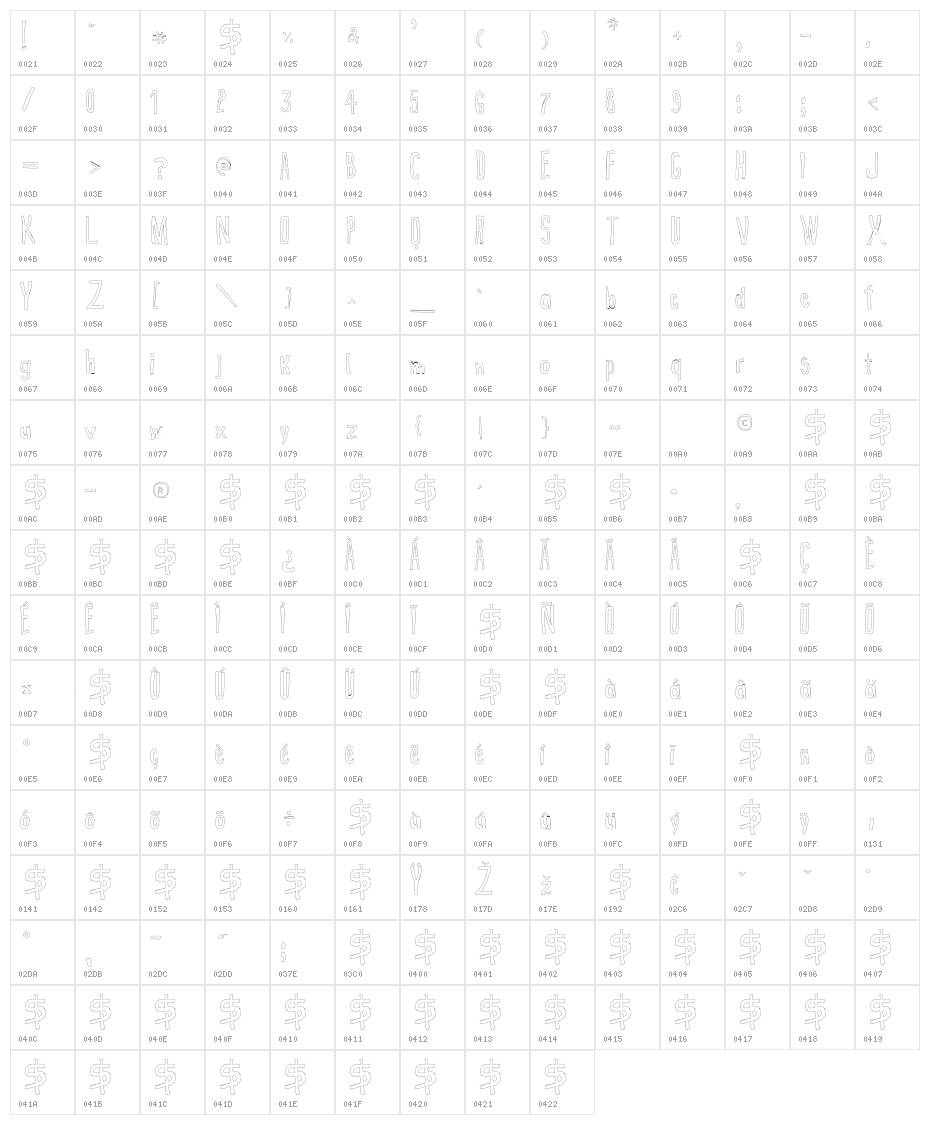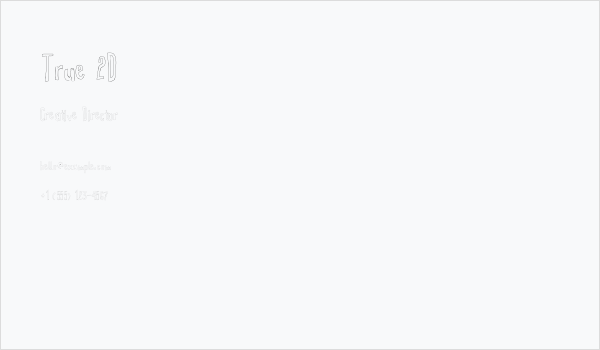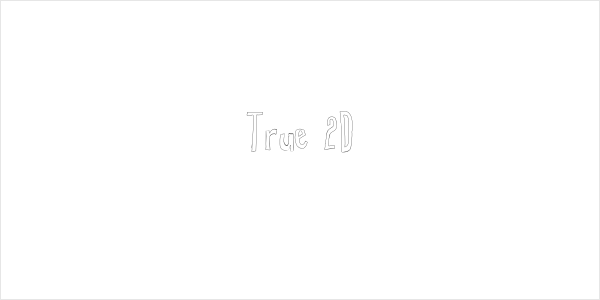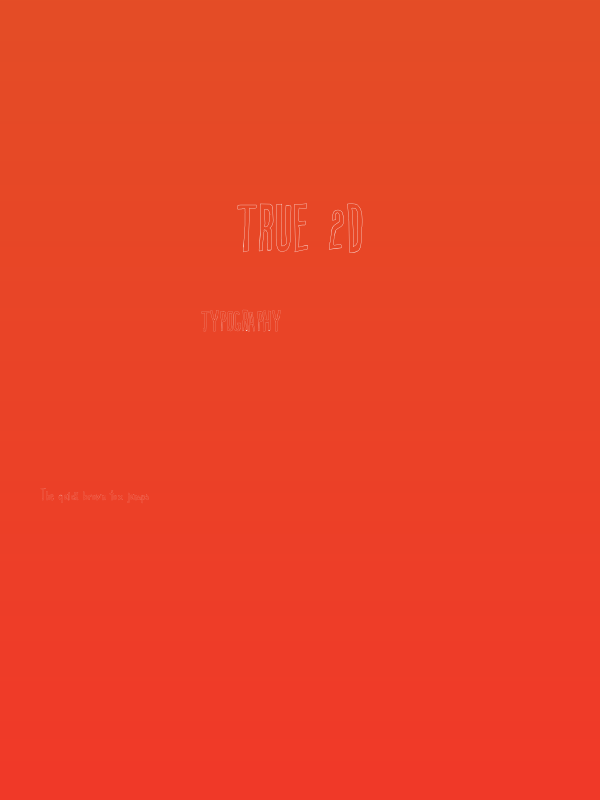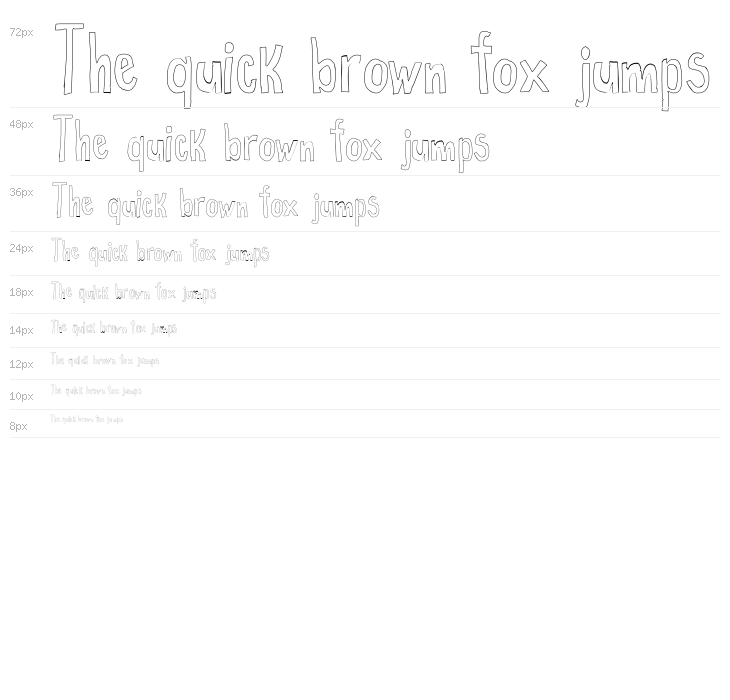
True 2D Font
True 2D Description
This font features a playful and hand-drawn aesthetic, characterized by its uneven lines and slightly irregular shapes. The uppercase letters are tall and narrow, with a whimsical touch that gives them a casual, informal feel. The lowercase letters maintain a similar style, with some letters like 'e' and 'g' having distinctive loops and curves. The numbers follow the same playful design, making them stand out with their unique forms. Special characters are creatively designed, adding to the overall quirky and artistic vibe of the font. The font's style is consistent across all characters, providing a cohesive look that is both charming and approachable.
| Proposed Projects | Ideal for children's books, creative posters, casual branding, and artistic projects. |